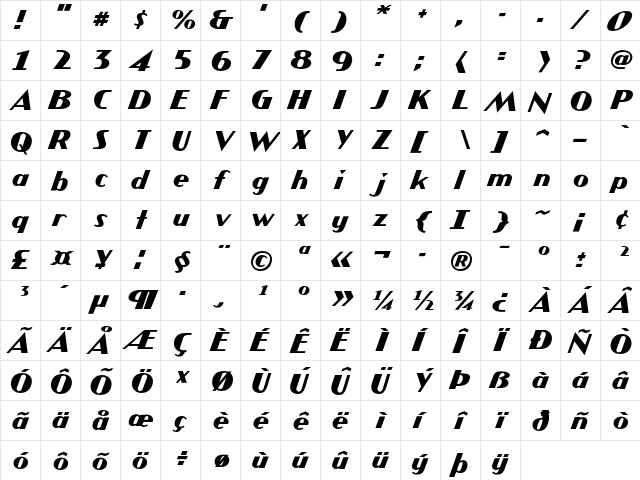
JMH COMICS Bold Italic
Design Context for JMH COMICS Typeface
JMH COMICS trades formality for fun, with bouncy, characterful letterforms that bring warmth and energy to any project. The dynamic lean of this cut emphasises speed and emphasis in any layout.
Font Pairing: Pairs well with a rounded or humanist sans for body copy, maintaining the friendly tone without relying on JMH COMICS to carry extended reading.
Pro Tip: Use JMH COMICS at larger display sizes where its expressive character can land. Pair with a clean, simple sans for body copy to maintain readability.